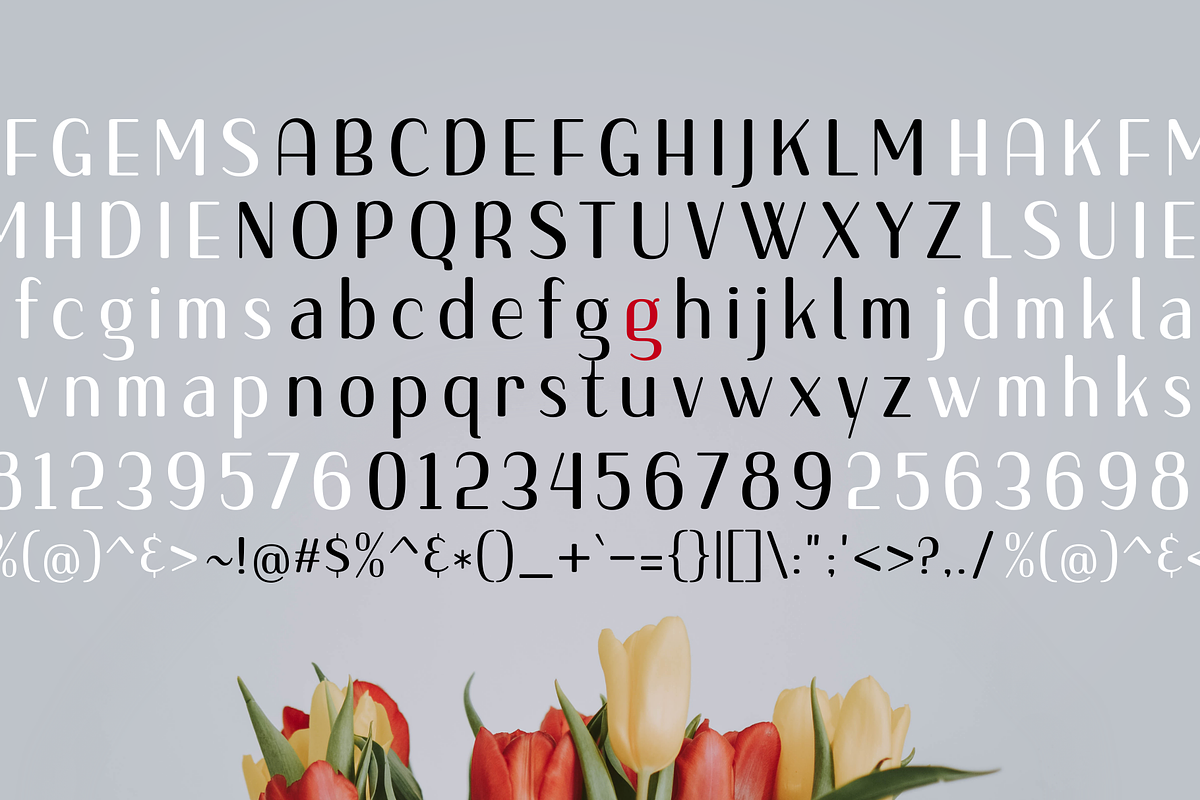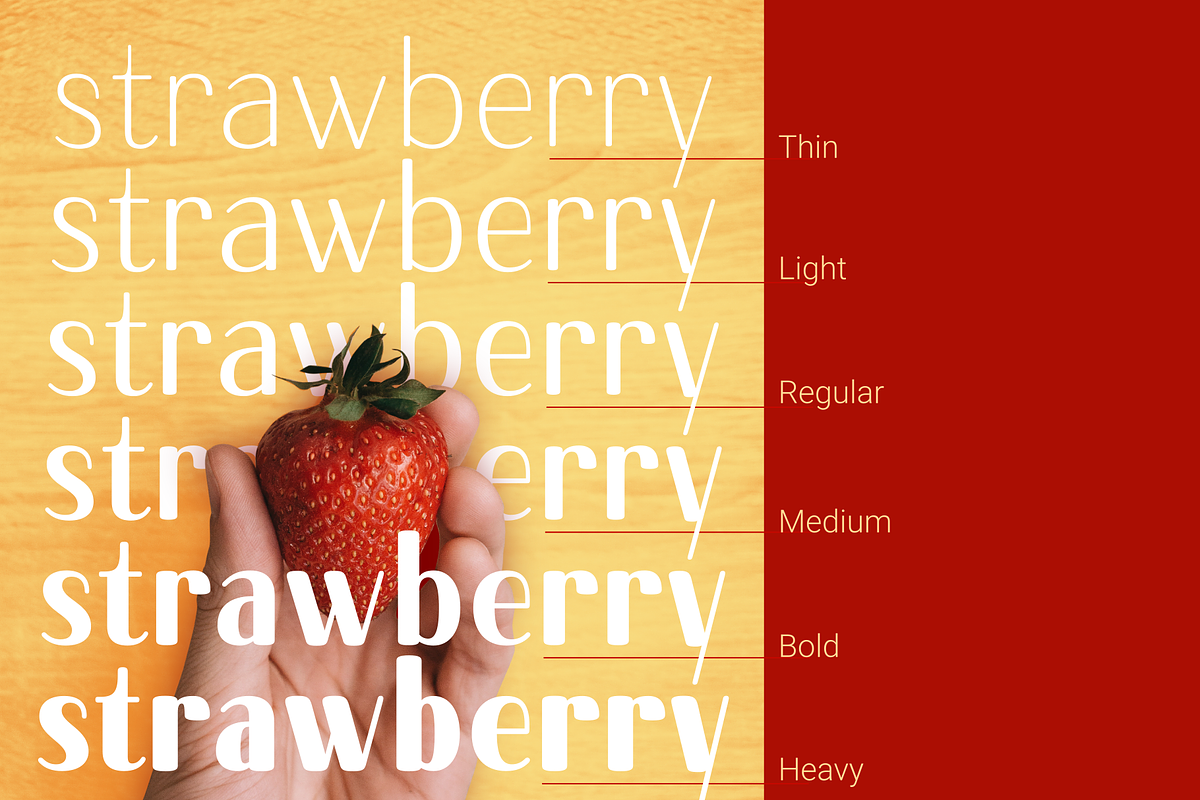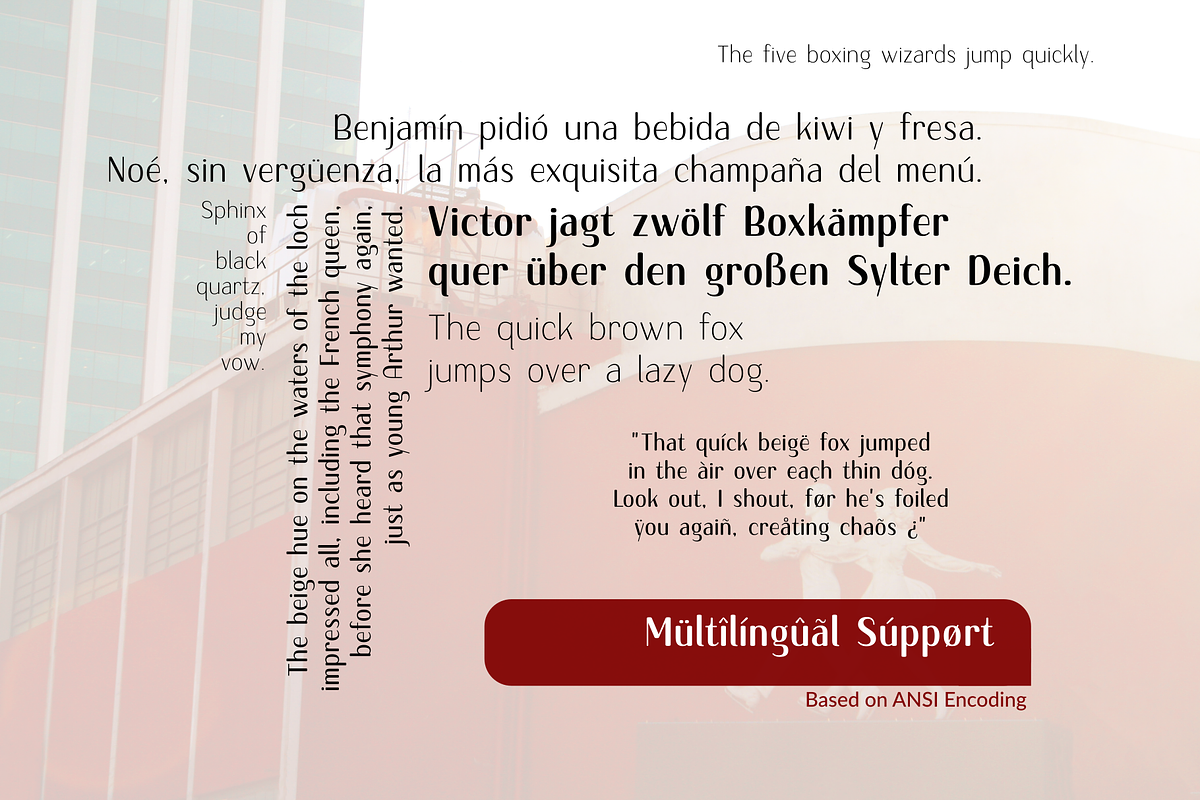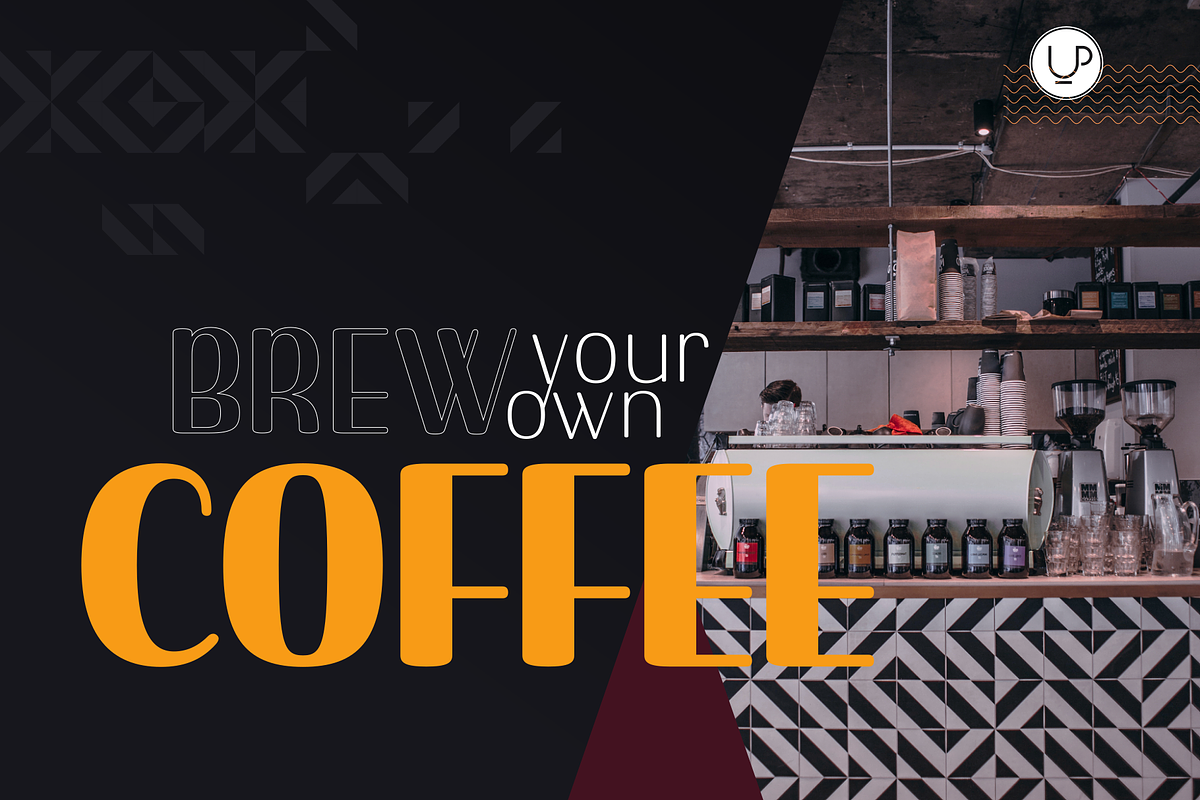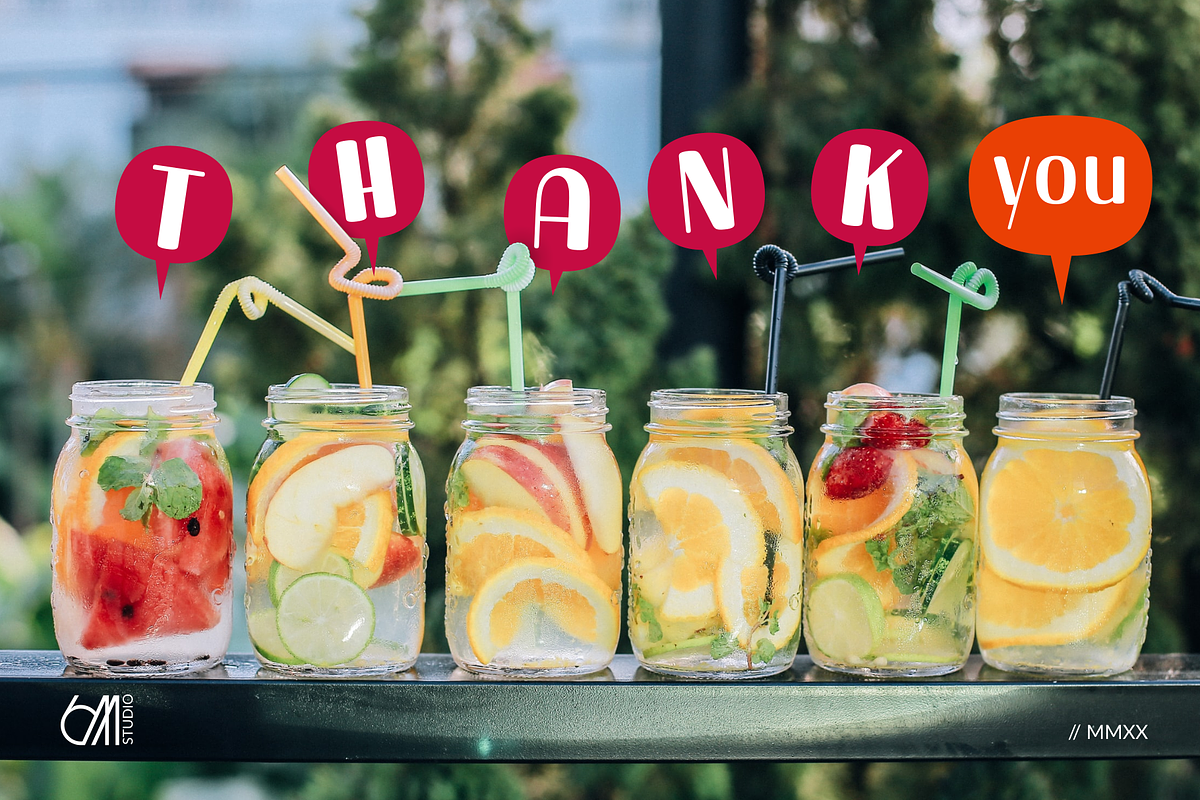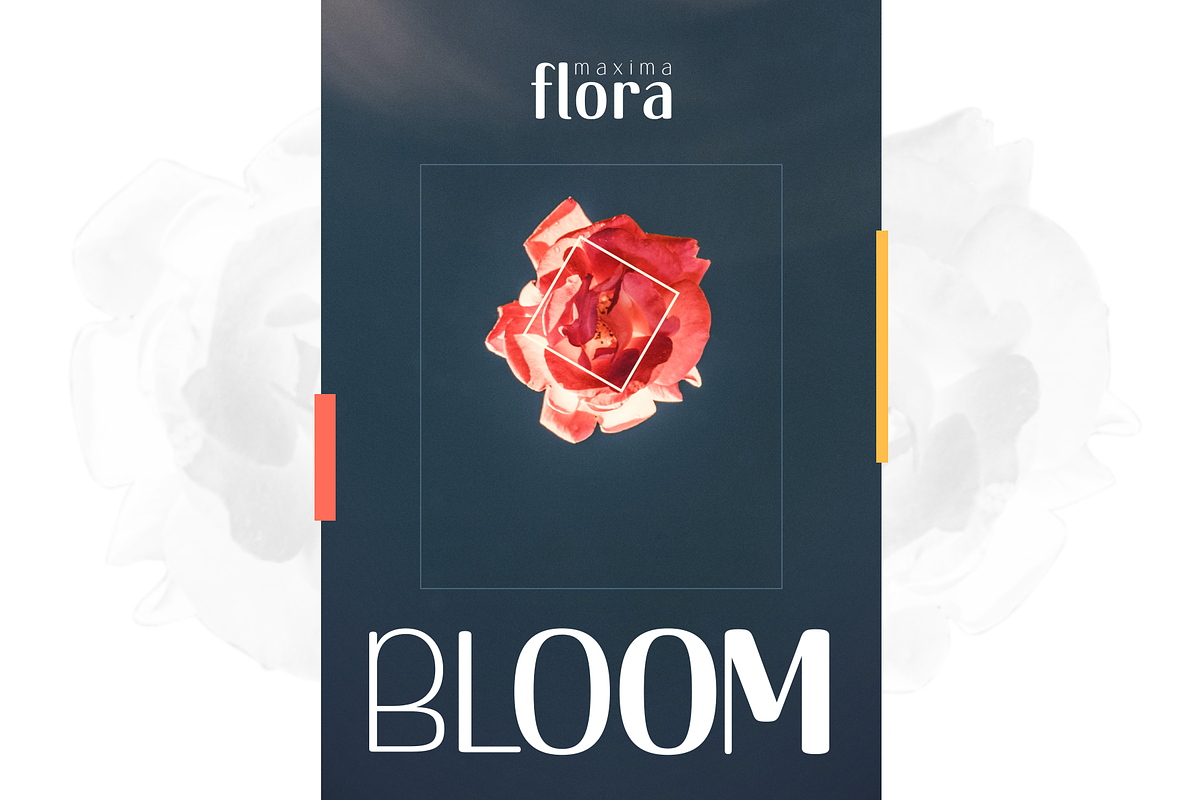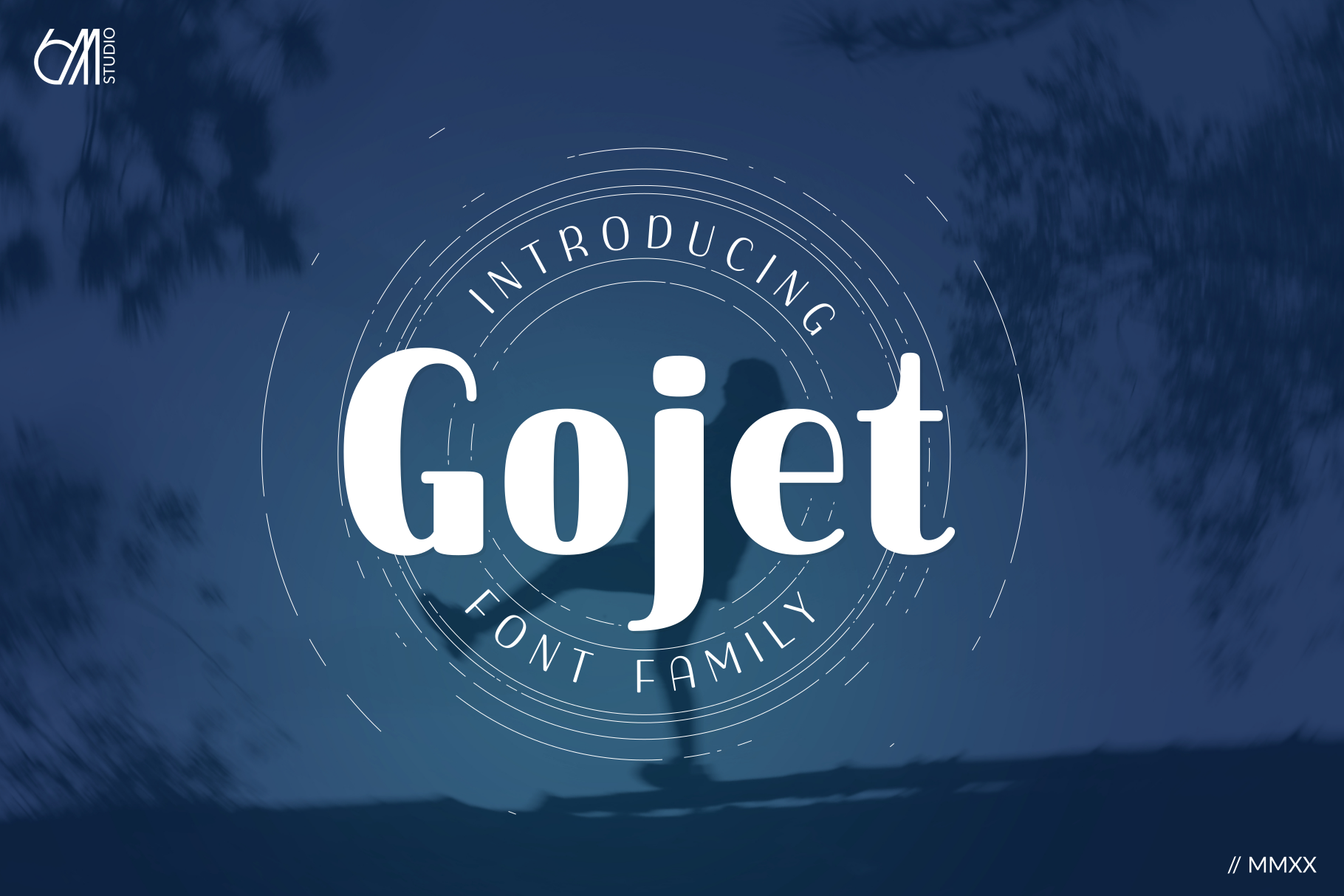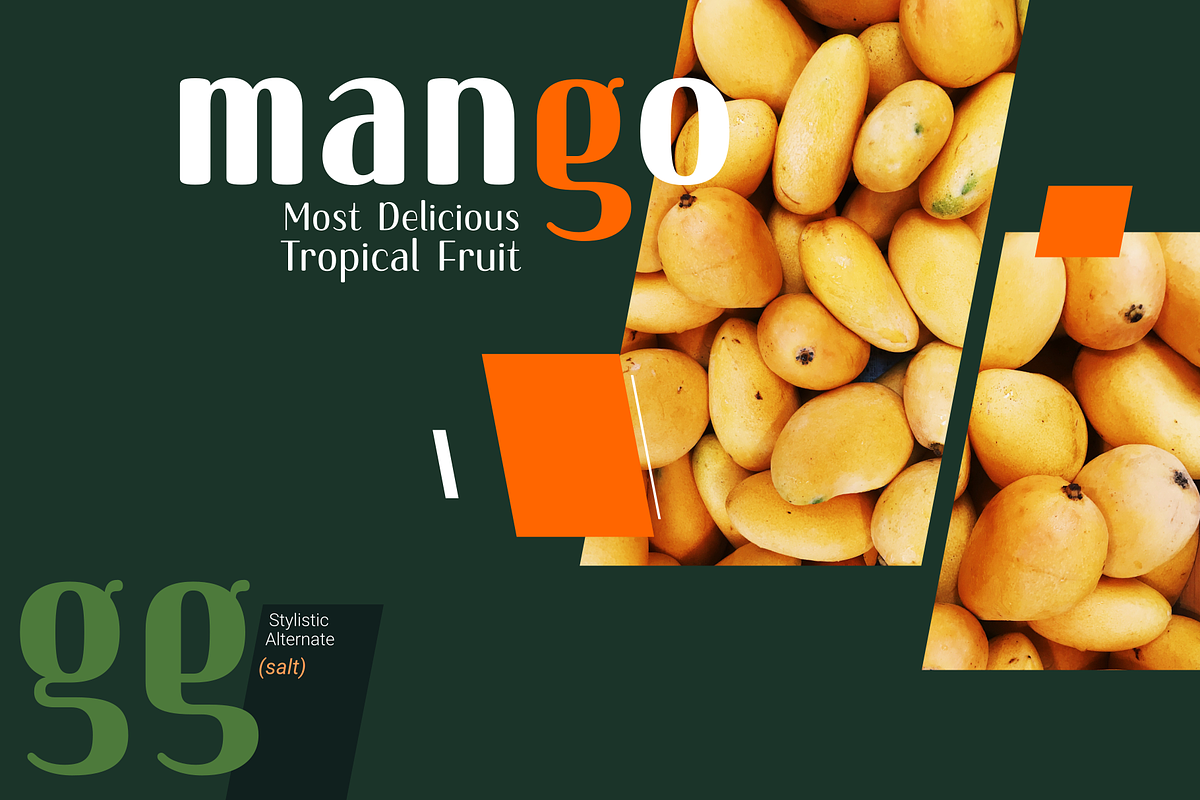
Gojet ~font family
611 Studio proudly presents Gojet, Sans Serif font family with calm, gentle and friendly look.
Gojet is available in six different weight from thin to heavy, makes it flexible and widely usage possibilities, text, headlines, even logotype. Mix and matching different weight is absolutely the right decision to make your project more attractive, eye catching.
The other fact that Gojet is based on ANSI encoding is additional point, multilingual support makes most languages can use this typeface properly.